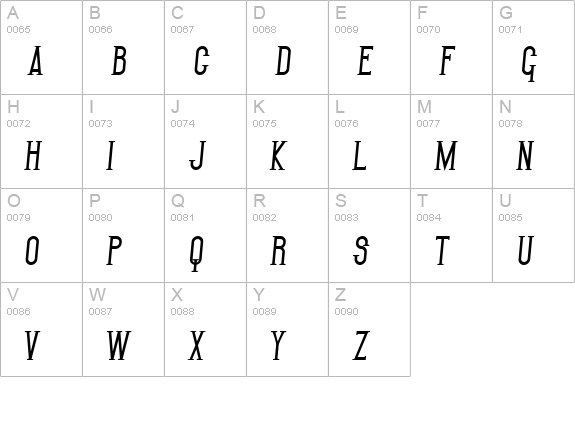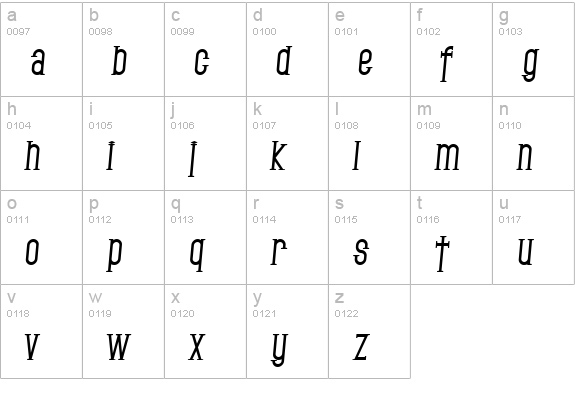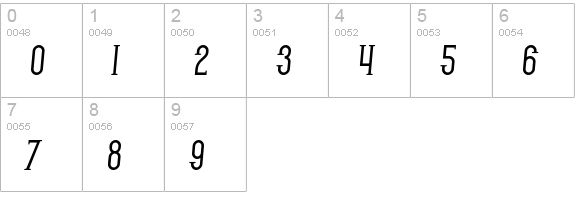
SF Gothican Bold Italic Font Details
SF Gothican Bold Italic is a strong, high-contrast, italic variant in the SF typeface family \xE2\x80\x94 well suited to headlines, attention-grabbing titles, and strong calls-to-action.
SF Gothican Bold Italic is a striking and captivating font that effortlessly blends elegance with an edgy gothic vibe. With its bold and italicized letterforms, this font exudes a sense of mystery and intrigue, making it perfect for projects that demand attention and leave a lasting impression. The unique design of SF Gothican Bold Italic is a testament to its versatility, allowing it to work equally well in both digital and print mediums. Whether you're creating a logo, designing a poster, or crafting a headline, this font is sure to make a bold statement. What sets SF Gothican Bold Italic apart is not only its stunning aesthetics, but also the fact that it is available for free download. Yes, you read that right! You can freely access and use this remarkable font to enhance your creative endeavors. Simply visit FontsMarket.com and indulge in the pleasure of downloading this one-of-a-kind typeface. So why wait? Harness the power of SF Gothican Bold Italic and elevate your designs to new heights. Let this font unleash your imagination and bring a touch of gothic allure to your projects. With SF Gothican Bold Italic, you have the freedom to express your creativity without any limitations. Download it now and witness the transformation of your designs into captivating works of art.